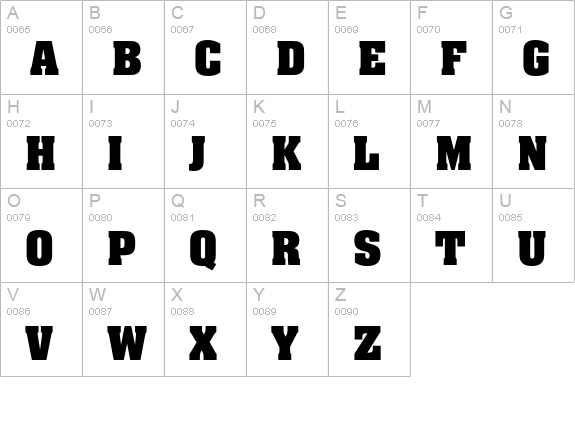
Aachen Bold is a strong, high-contrast variant in the Aachen typeface family \xE2\x80\x94 well suited to headlines, attention-grabbing titles, and strong calls-to-action.
Aachen Bold font is a visually striking typeface that exudes confidence and power. Its bold and heavy strokes make a bold statement, perfect for capturing attention and leaving a lasting impression. With its distinct and distinctively strong letterforms, Aachen Bold font is ideal for headlines, titles, and logos, adding a touch of boldness and character to any design. What sets Aachen Bold font apart is not only its boldness but also its versatility. It is designed to be easily legible at various sizes, ensuring readability even in smaller text. This makes it a flexible choice for a wide range of creative projects, from magazine layouts and packaging designs to posters and corporate branding. One of the best features of Aachen Bold font is that it is available for free download at FontsMarket.com. This means that designers and creatives can easily access and use this stunning typeface without any cost. Its availability for free makes it even more appealing, allowing designers to explore its potential and unleash their creativity without any limitations. Whether you're designing a bold and impactful advertisement, a powerful and striking poster, or a memorable and eye-catching logo, Aachen Bold font is the perfect choice. Its boldness and versatility, combined with its free availability, make it a must-have in any designer's toolkit. Download Aachen Bold font now at FontsMarket.com and see how it can elevate your designs to the next level.